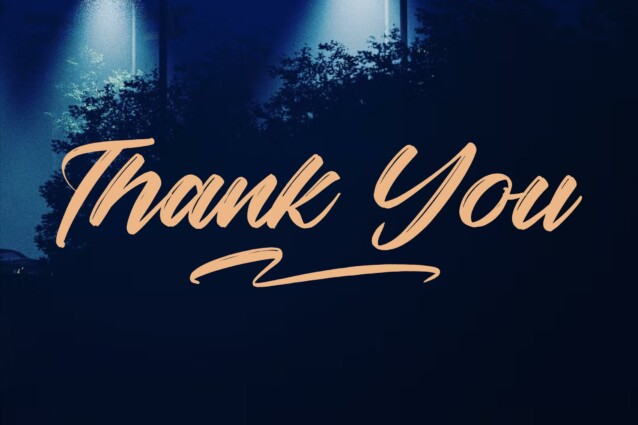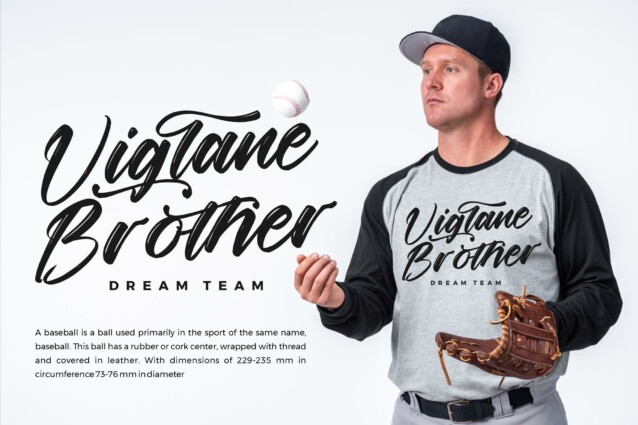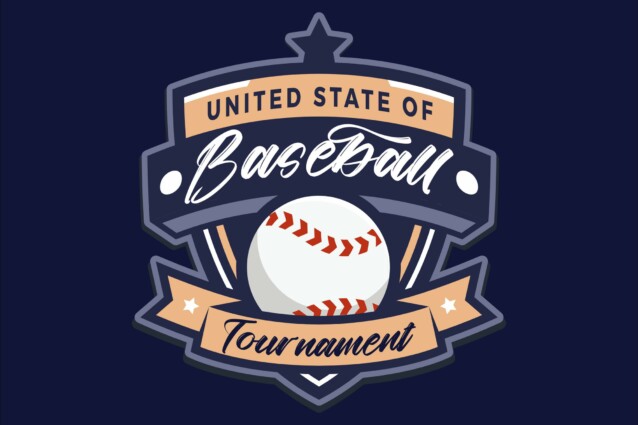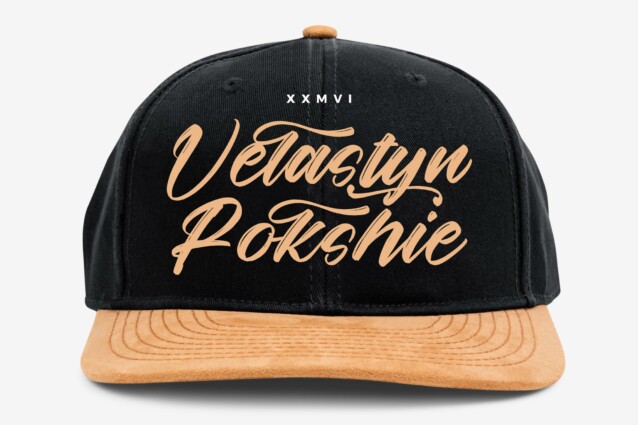
Bakelline Micigants Font is a Rough Brush Font, suitable for any projects such as: logos, branding projects, homeware designs, product packaging, mugs, quotes, posters, shopping bags, t-shirts, book covers, name card, invitation cards, greeting cards, label, photography, watermark, special events, and all your other lovely projects that need a beautiful script taste.